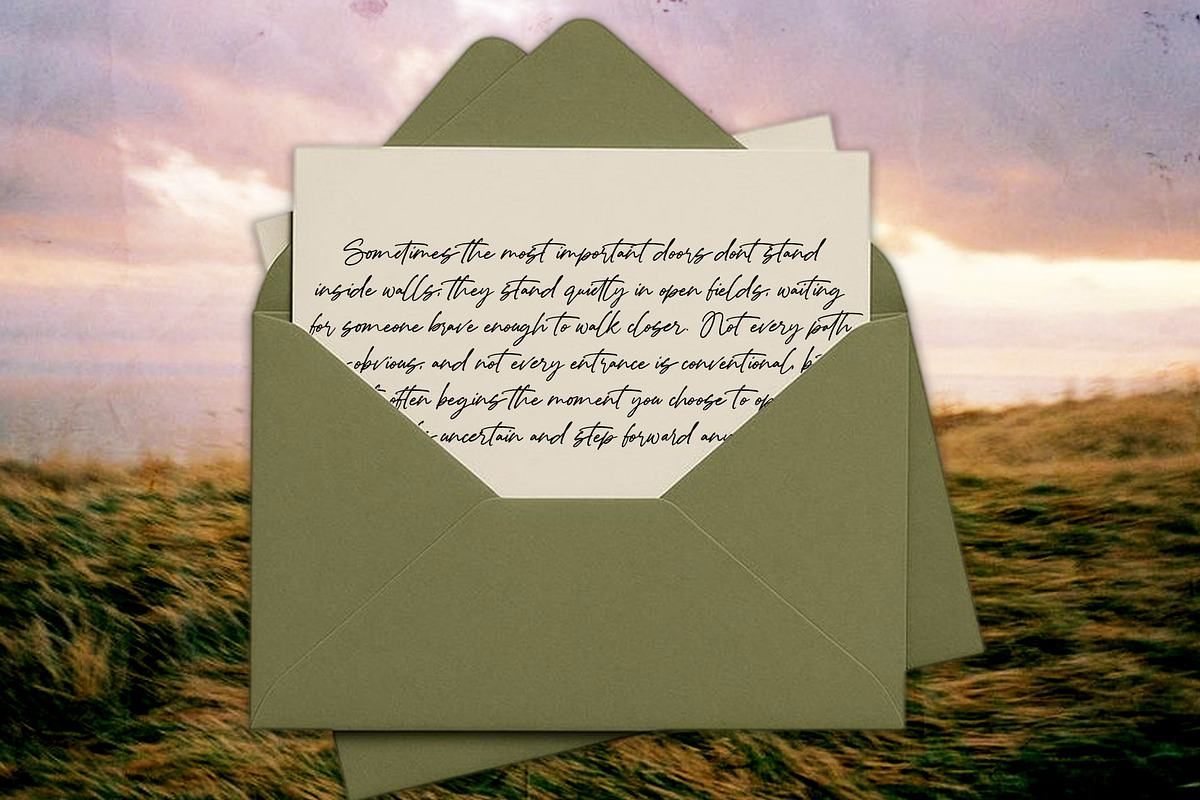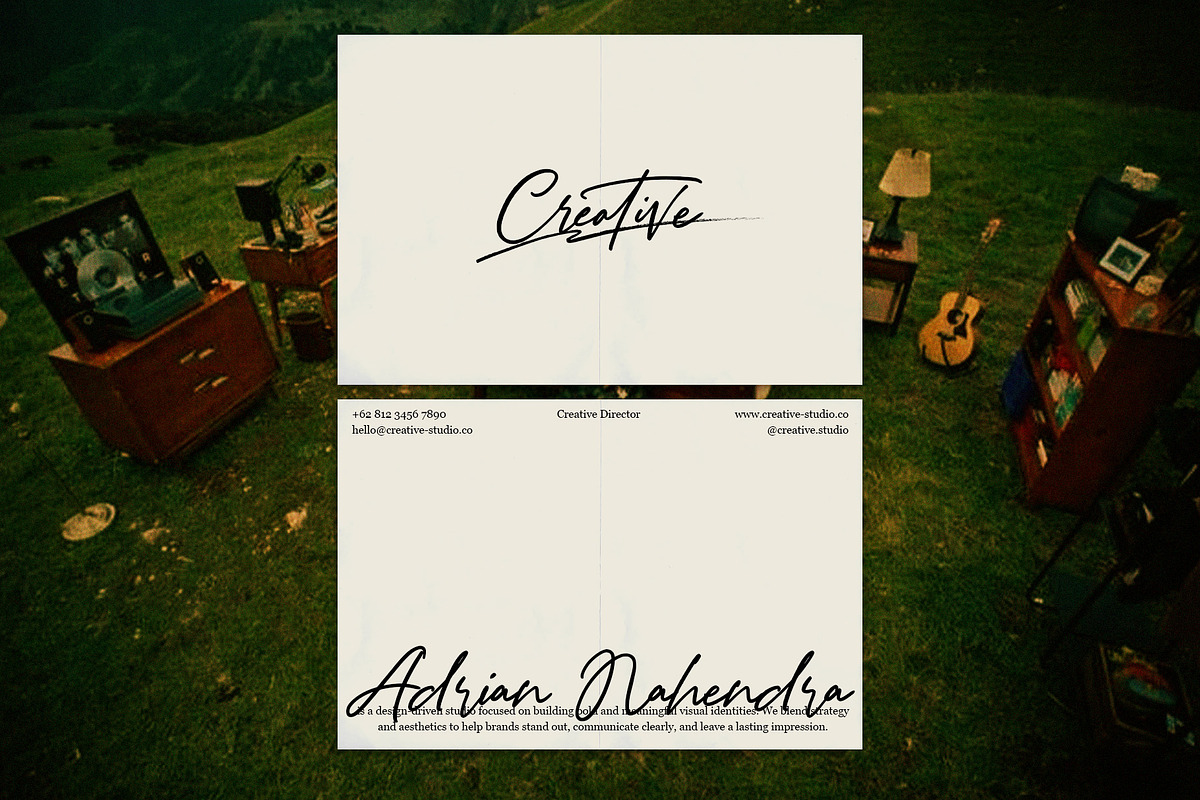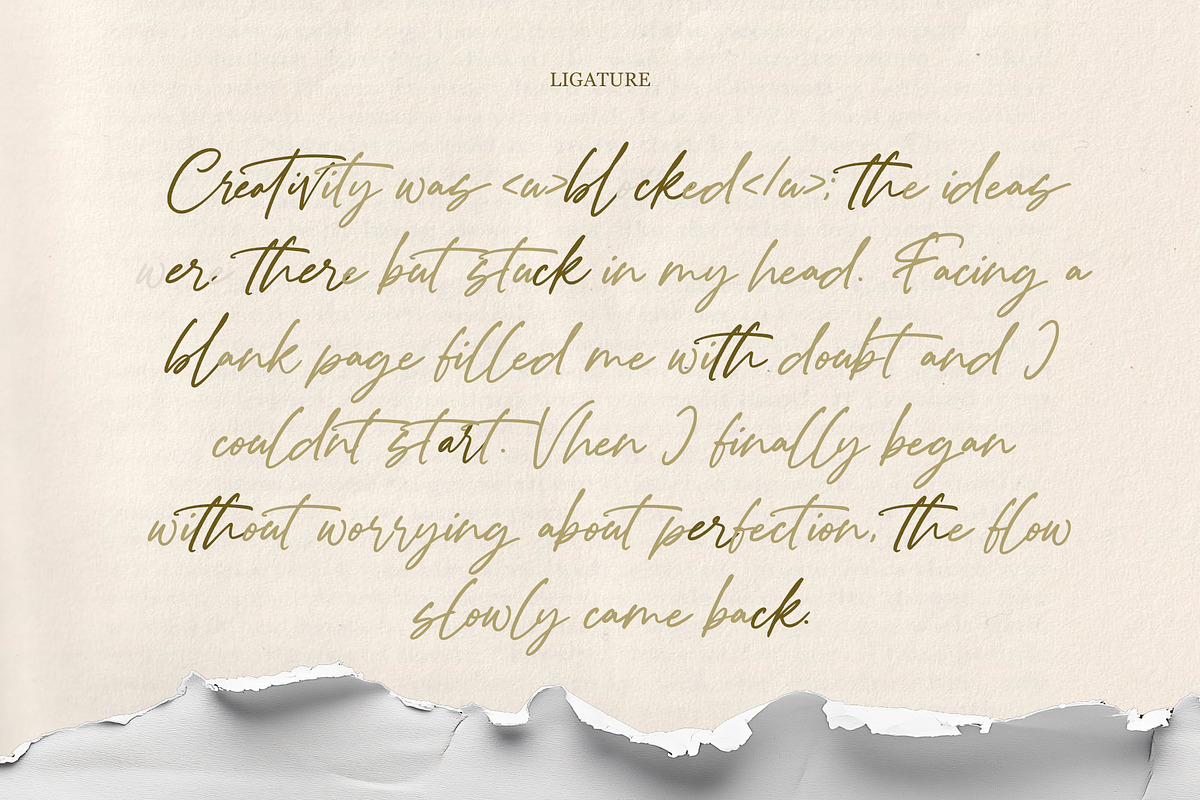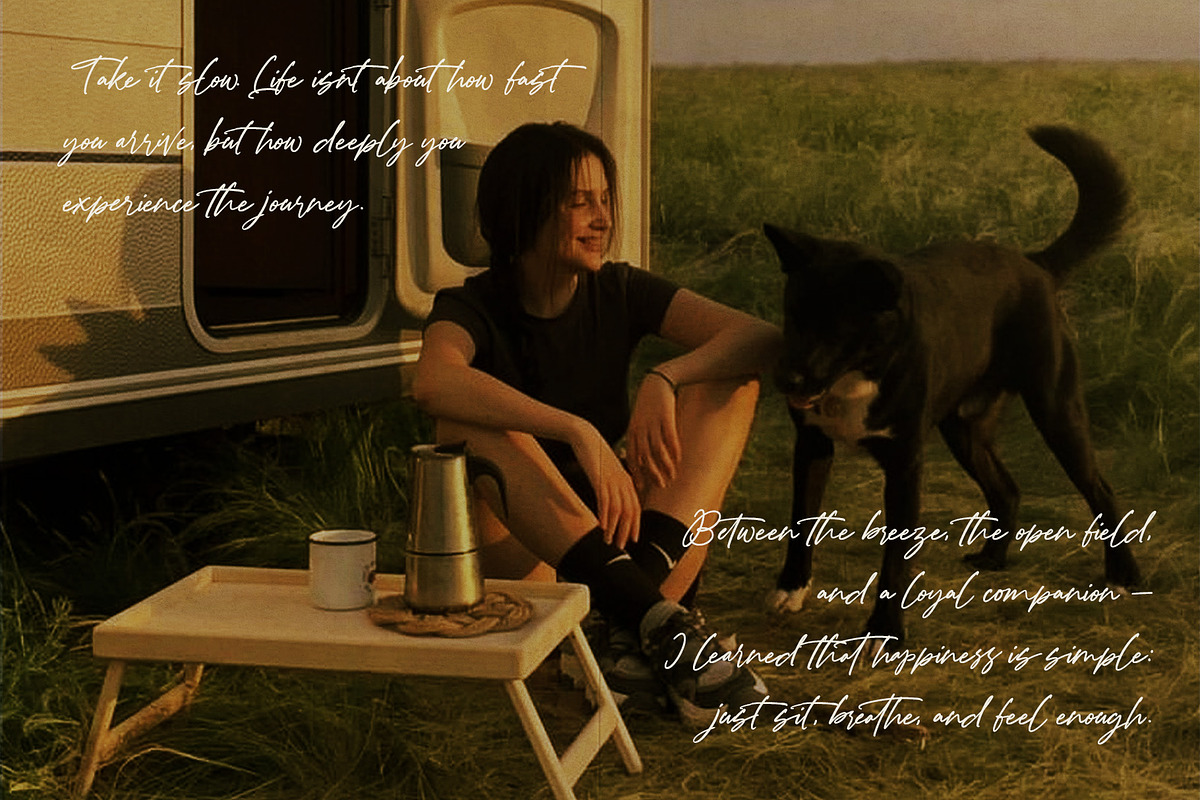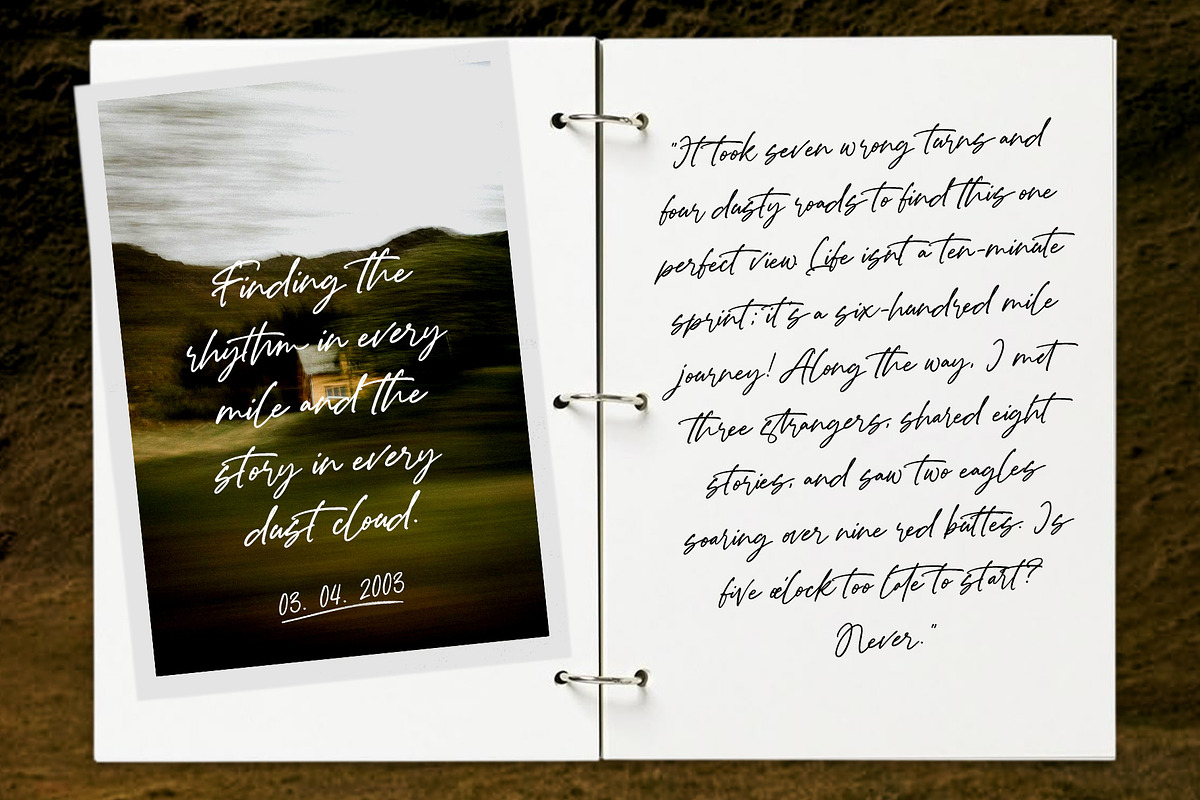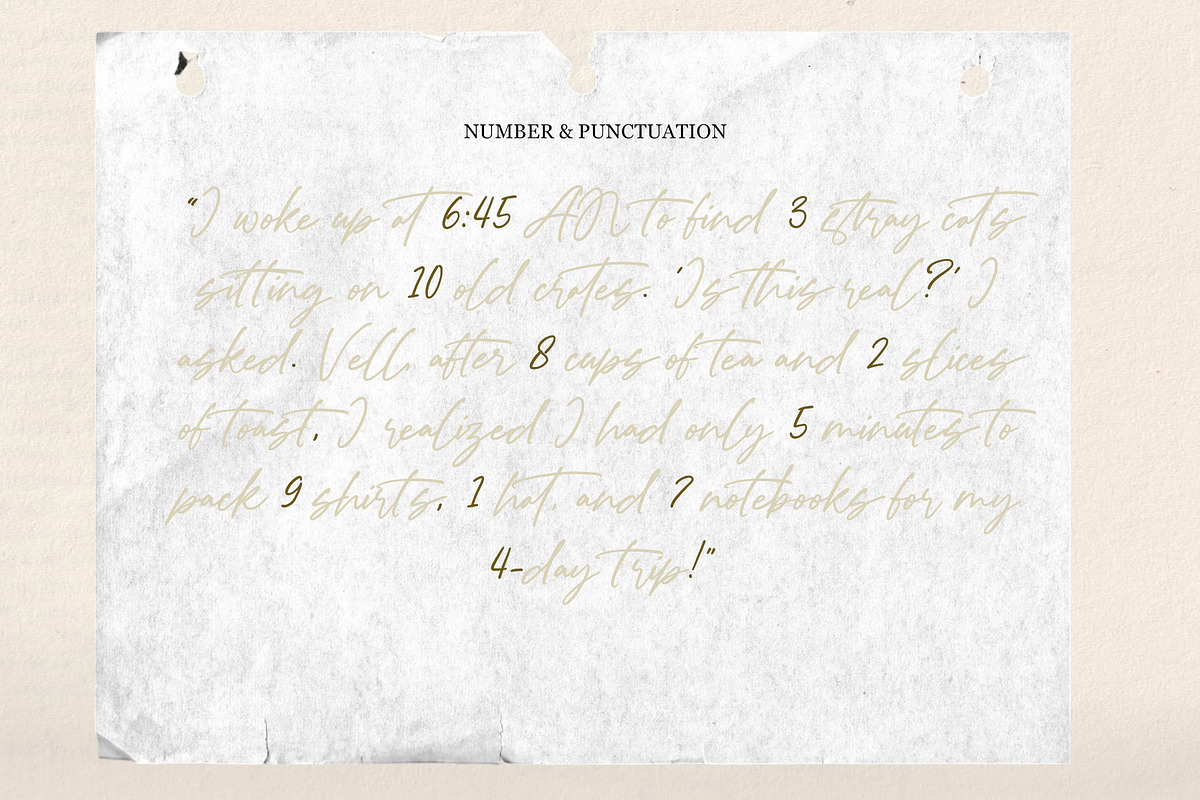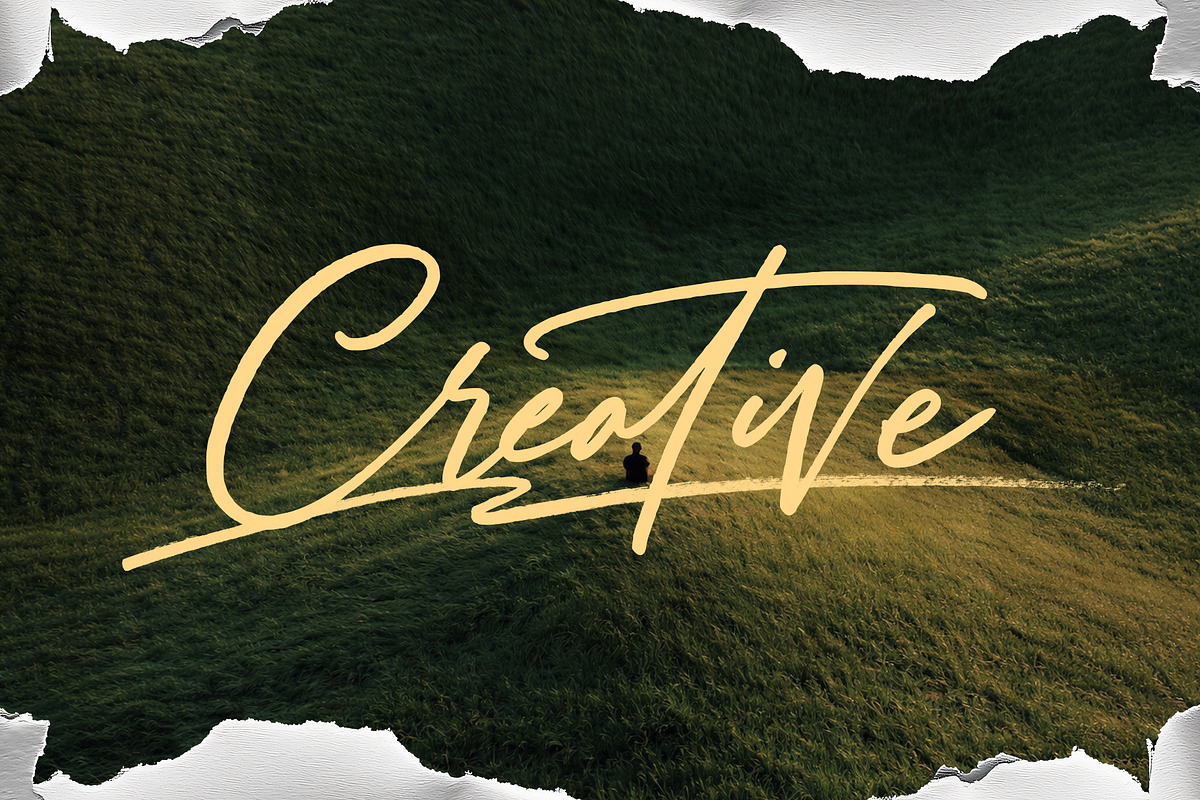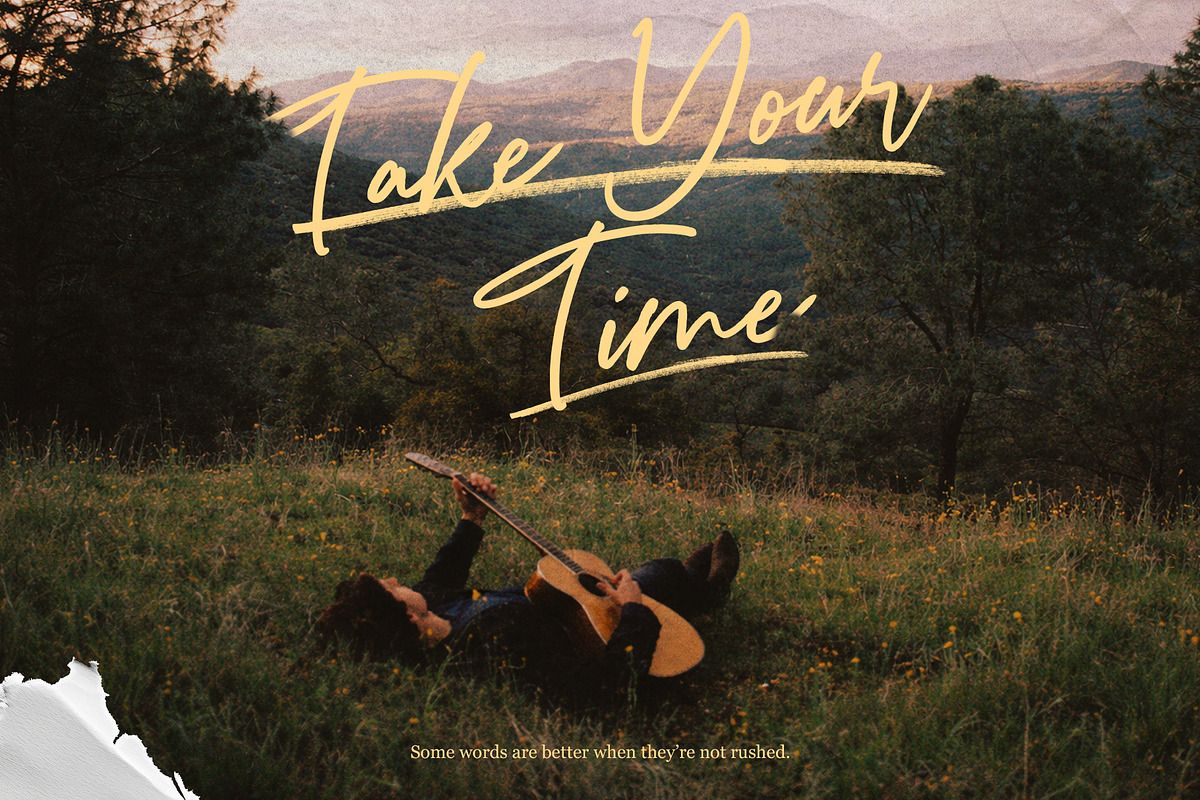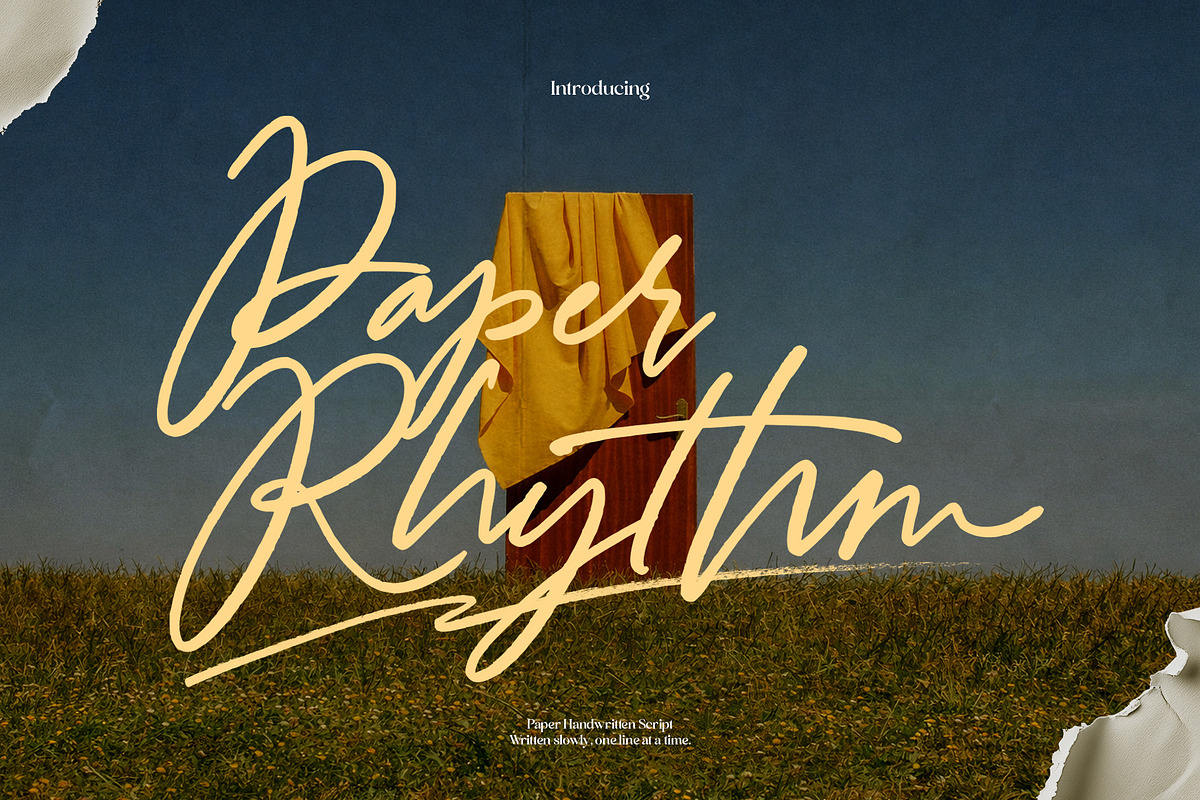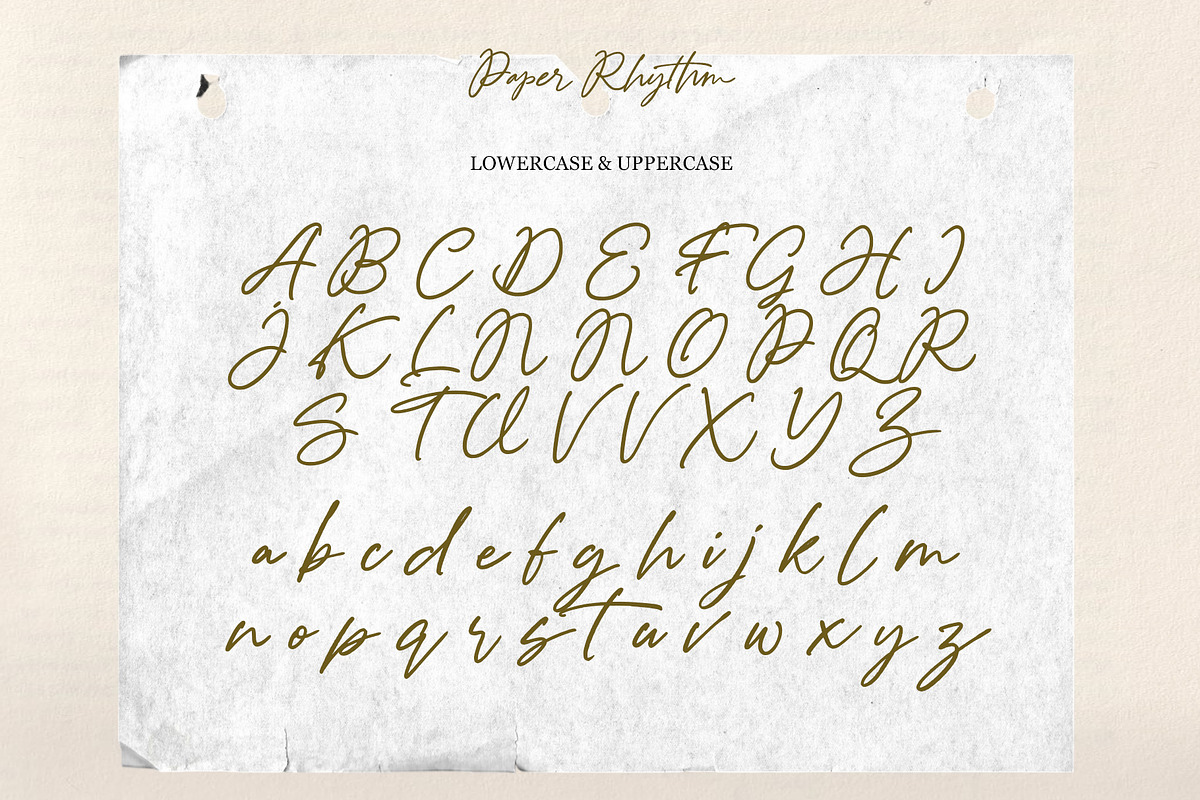
Paper Rhythm - Handwritten Script
Paper Rhythm is a natural handwritten script typeface inspired by slow moments, quiet landscapes, and personal journaling. Each letter flows effortlessly with organic curves and balanced strokes, creating an authentic handwritten feel without losing readability. It captures the warmth of ink on paper soft, expressive, and beautifully imperfect.
Designed with smooth connections and elegant ligatures, Paper Rhythm works perfectly for branding, editorial layouts, wedding invitations, quotes, packaging, social media, and signature logos. Whether you’re creating something romantic, modern, or minimal, this typeface adds a personal and timeless touch to every design.
Uppercase & Lowercase characters
Stylish Ligatures
Smooth natural alternates